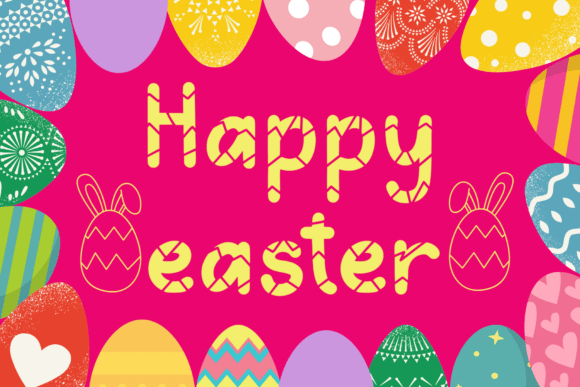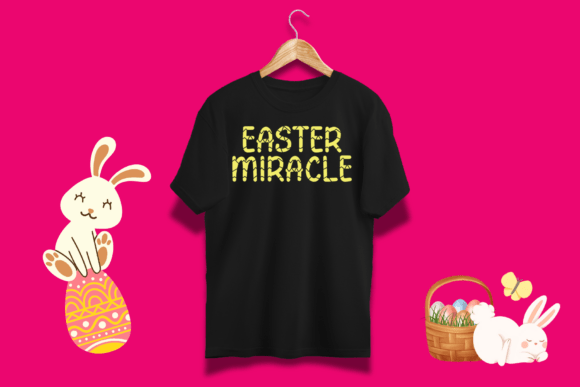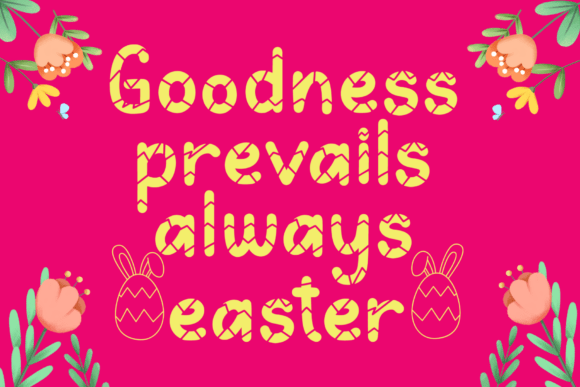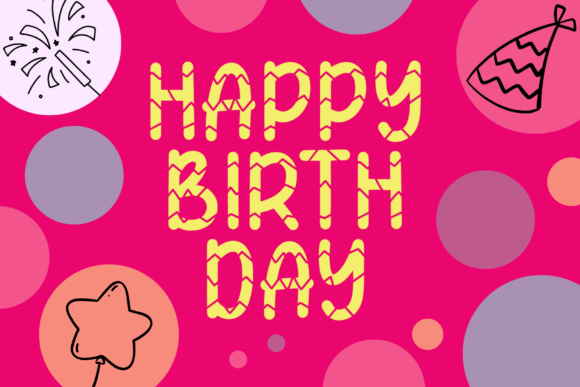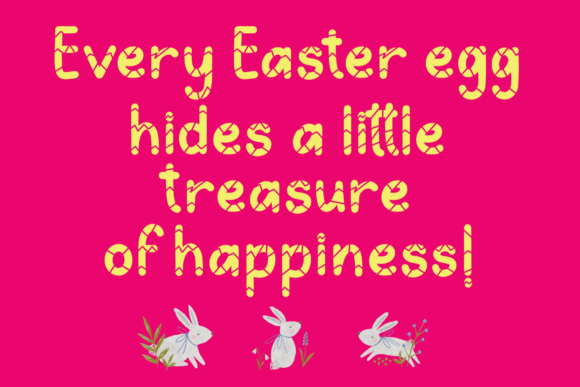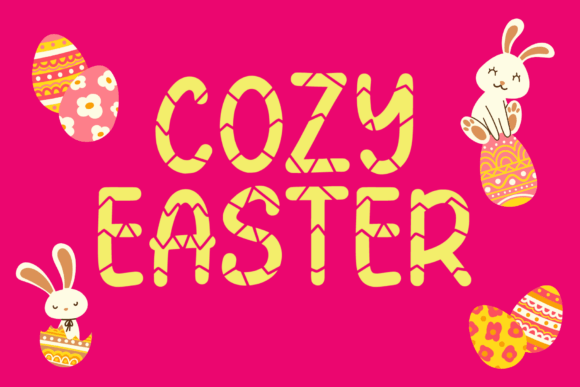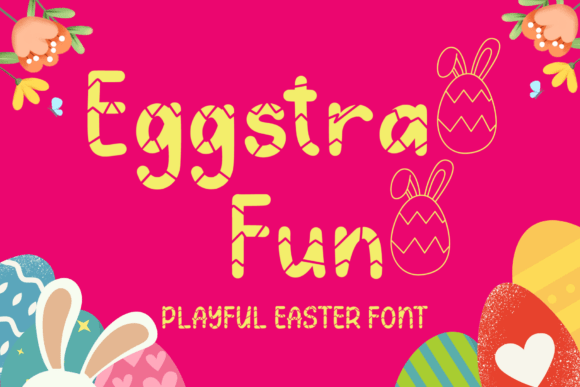
Eggstra Fun Font: The Perfect Addition to Your Easter-Themed Designs
Are you searching for a font that will add a touch of whimsy and festivity to your Easter-themed designs? Look no further than Eggstra Fun, a quirky Easter-themed display font that’s sure to delight. Inspired by the patterns and charm of Easter eggs, this playful font is perfect for holiday crafting, social media content, and seasonal branding.
The Inspiration Behind Eggstra Fun
Eggstra Fun is more than just a font – it’s a celebration of the joy and creativity of Easter. The font’s design is inspired by the colorful patterns and playful motifs found on Easter eggs, bringing a sense of warmth and festivity to every piece. Whether you’re creating greeting cards, DIY decorations, or social media content, Eggstra Fun is the perfect choice for adding a touch of Easter charm.
Perfect for Holiday Crafting
For crafters and makers, Eggstra Fun is a dream come true. The font’s playful, festive style is perfect for creating adorable greeting cards, cheerful DIY decorations, and other Easter-themed crafts. With Eggstra Fun, you can add a personal touch to your creations and make them truly special. Imagine creating handmade Easter cards, gift tags, or decorations that feature this delightful font – the possibilities are endless!
Elevate Your Social Media Content
In today’s digital age, social media is a crucial part of any marketing strategy. With Eggstra Fun, you can add a touch of Easter flair to your social media content and make it stand out from the crowd. Use the font to create eye-catching graphics, festive Facebook posts, or Instagram stories that will delight your followers and leave them feeling uplifted. Whether you’re a blogger, influencer, or business owner, Eggstra Fun is the perfect choice for adding a playful touch to your Easter content.
Seasonal Branding Made Easy
For businesses, Easter is a great opportunity to connect with customers and create a festive brand experience. With Eggstra Fun, you can easily add a touch of Easter charm to your branding and marketing materials. Use the font to create seasonal packaging, promotional materials, or website graphics that will delight your customers and leave a lasting impression. Whether you’re a small business or a large corporation, Eggstra Fun is the perfect choice for adding a playful touch to your Easter branding.
Key Features of Eggstra Fun
- Playful, festive design inspired by Easter eggs
- Perfect for holiday crafting, social media content, and seasonal branding
- Adorable and whimsical style that’s sure to delight
- Easy to use and versatile for a variety of design projects
- Warm and creative aesthetic that’s perfect for Easter-themed designs
Get Creative with Eggstra Fun
Whether you’re a designer, crafter, or business owner, Eggstra Fun is the perfect choice for adding a touch of Easter charm to your designs. With its playful, festive style and adorable aesthetic, this font is sure to bring joy and creativity to every piece. So why wait? Download Eggstra Fun today and start creating your own Easter-themed masterpieces!
In conclusion, Eggstra Fun is the perfect font for anyone looking to add a touch of Easter charm to their designs. With its playful, festive style and adorable aesthetic, this font is sure to delight designers, crafters, and business owners alike. Whether you’re creating holiday crafts, social media content, or seasonal branding materials, Eggstra Fun is the perfect choice for spreading Easter joy with style. So don’t miss out – download Eggstra Fun today and start creating your own Easter-themed designs!